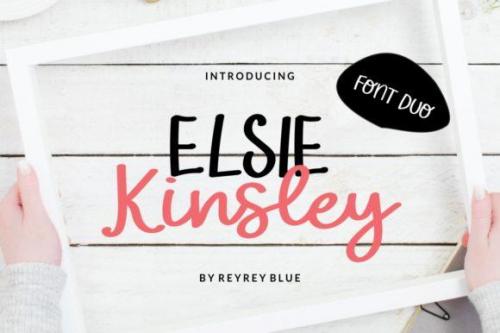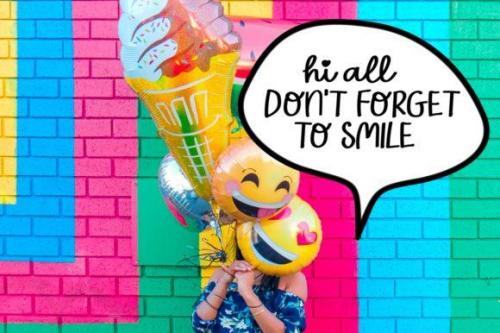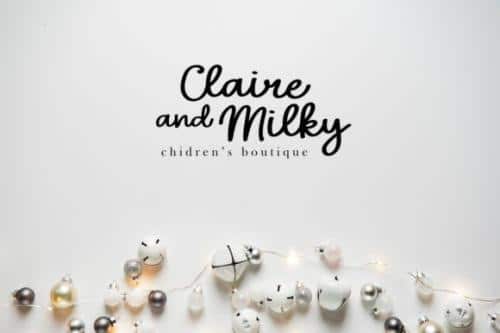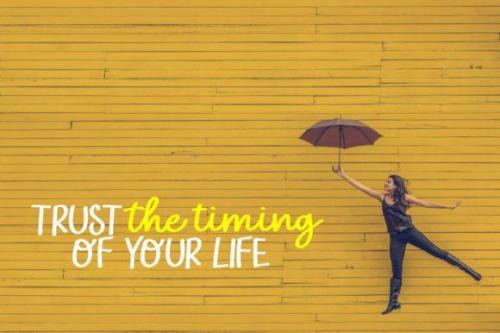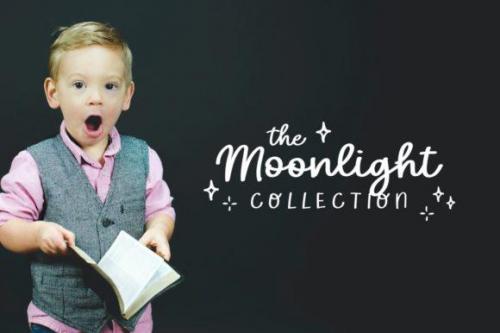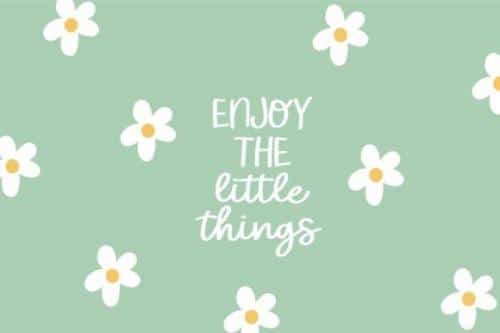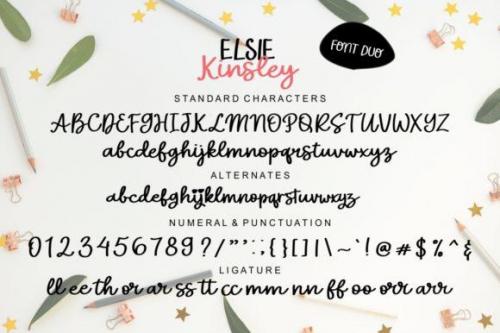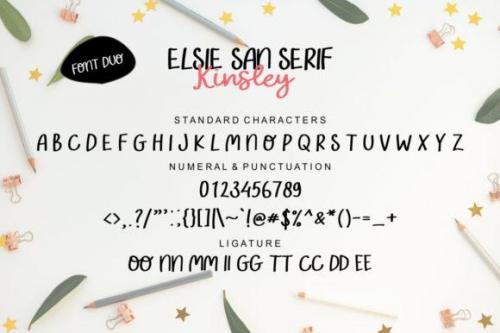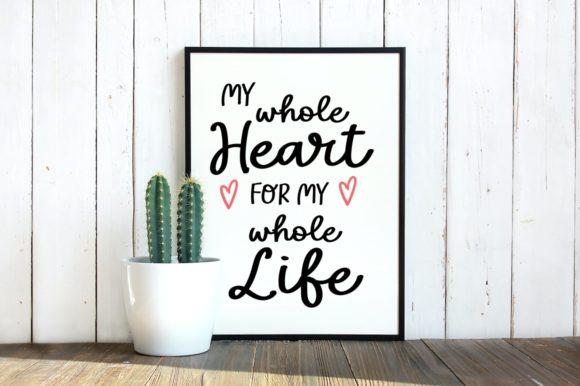
Elsie Kinsley is a sweet little font duo that has a fun and modern vibe. It consists of two lovingly handwritten fonts. Perfect for Type-based creations, branding, websites, merchandise, packaging, quotes, invites, greetings and so much more!